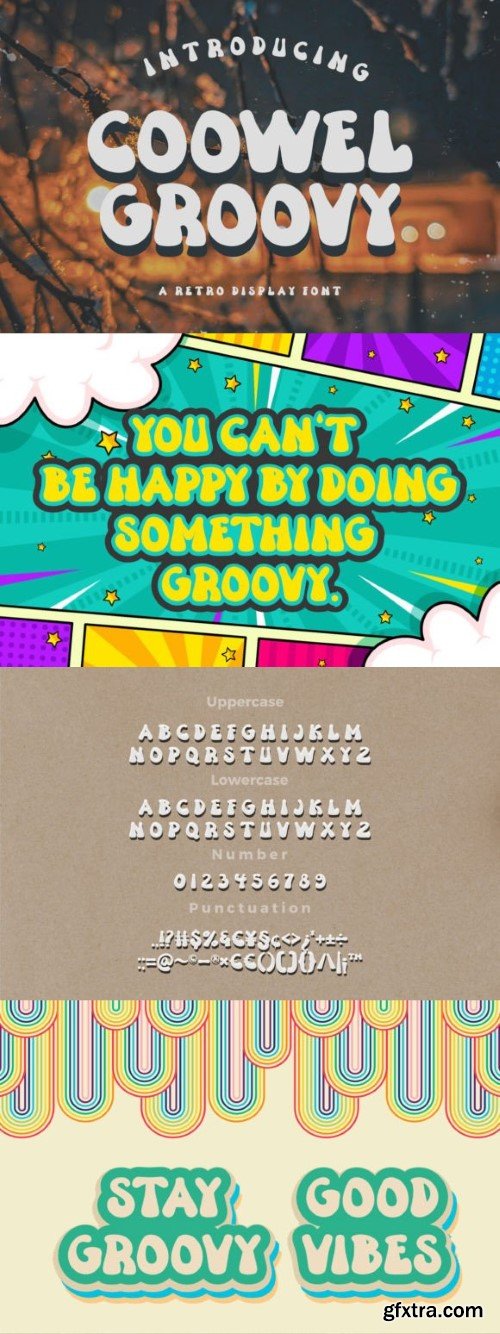
Coowel Groovy is a cute and charming display font. Whimsical and a bit quirky, this font will brighten up each of your designs. Add it confidently to your projects, and you will love the results.